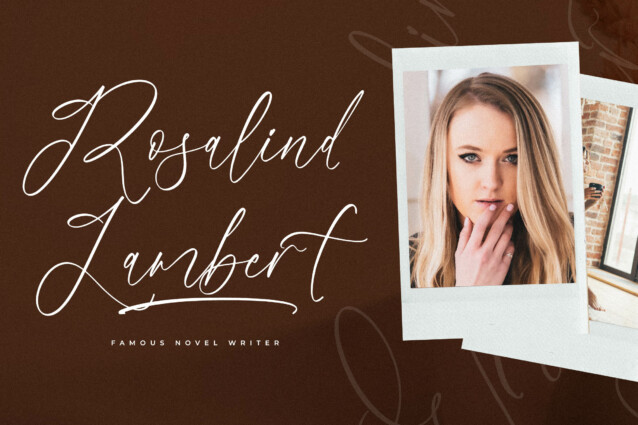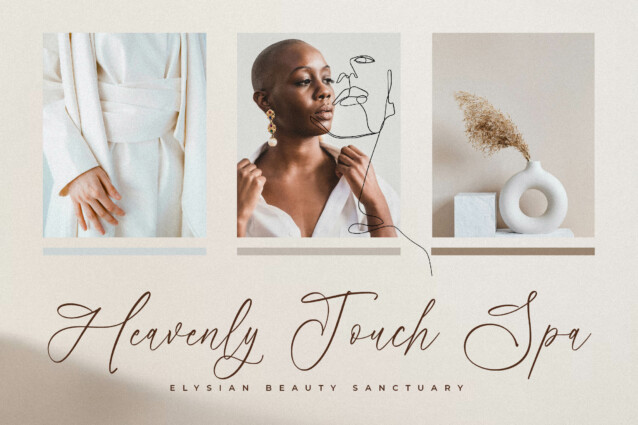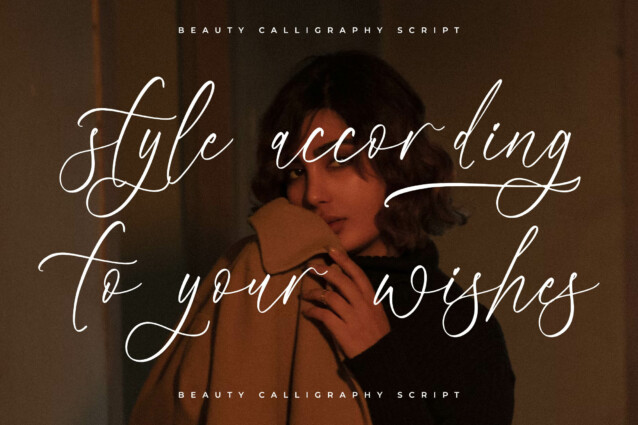
Auttolyn Hemilga Font
Auttolyn Hemilga Font is a beauty calligraphy script , from Glorytype Studio, suitable for any projects such as: logos, branding projects, homeware designs, product packaging, mugs, quotes, posters, shopping bags, t-shirts, book covers, name card, invitation cards, greeting cards, label, photography, watermark, special events, and all your other lovely projects that need a beautiful script taste.